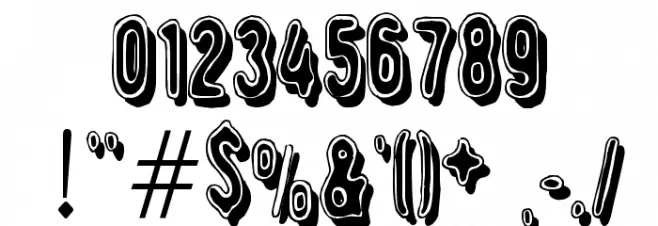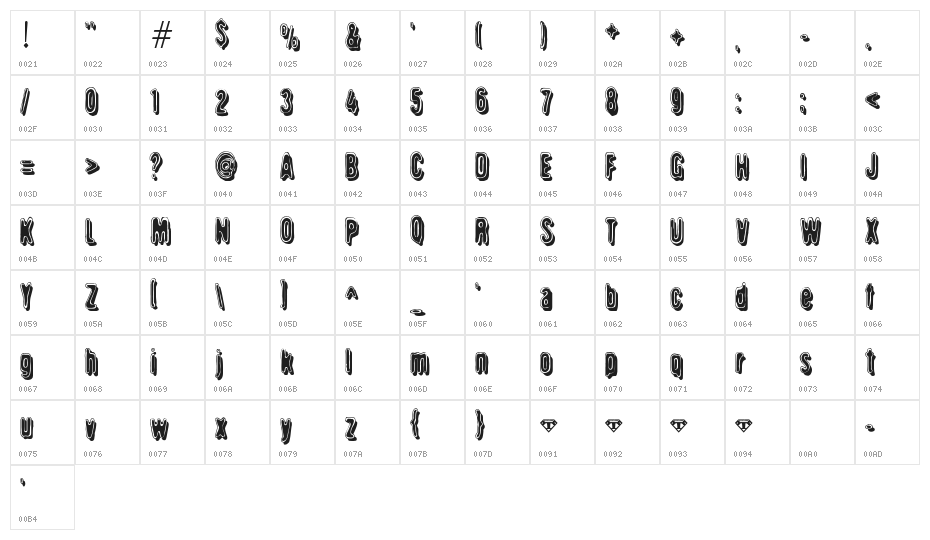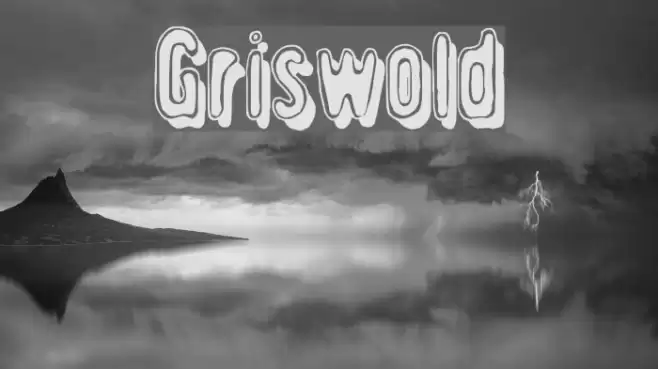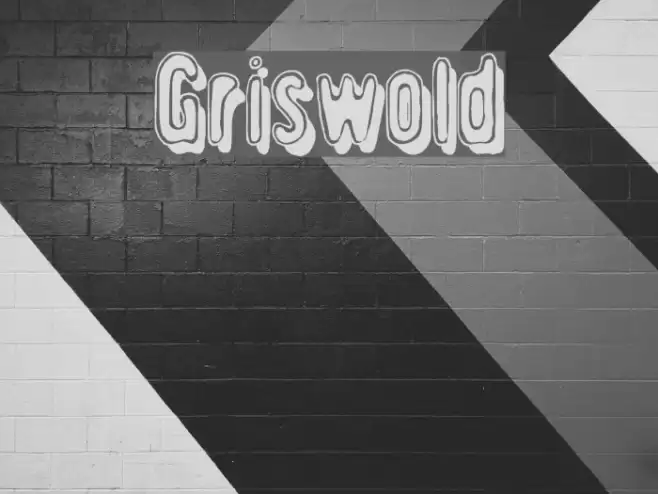
Griswold Font
Griswold Description
This font features a bold, playful style with a thick outline that gives each character a three-dimensional effect. The letters are rounded and slightly irregular, adding a whimsical and informal touch. The uppercase and lowercase letters maintain a consistent style, with the lowercase being slightly smaller and more compact. Numbers and special characters follow the same design principles, ensuring a cohesive look across all glyphs. The font's unique appearance makes it stand out, perfect for projects that require a fun and eye-catching typeface.
| Proposed Projects | Ideal for children's books, comic strips, playful branding, and event posters. |